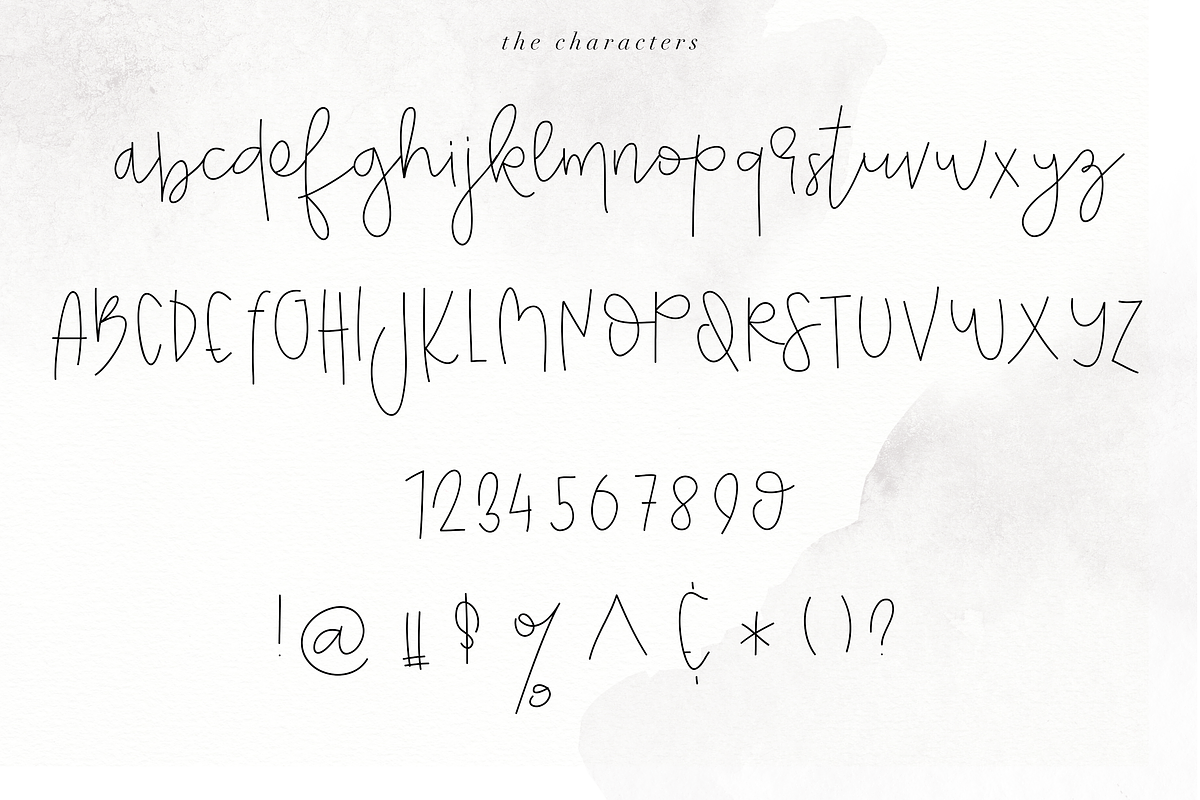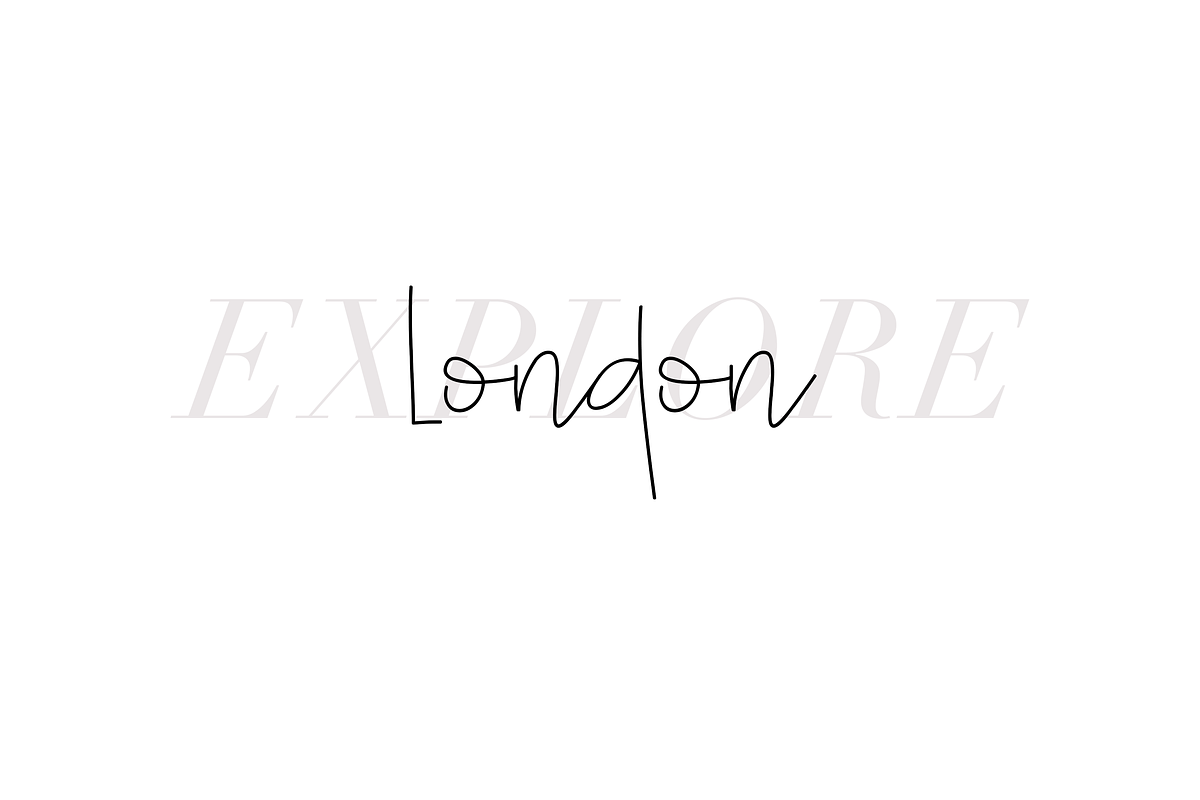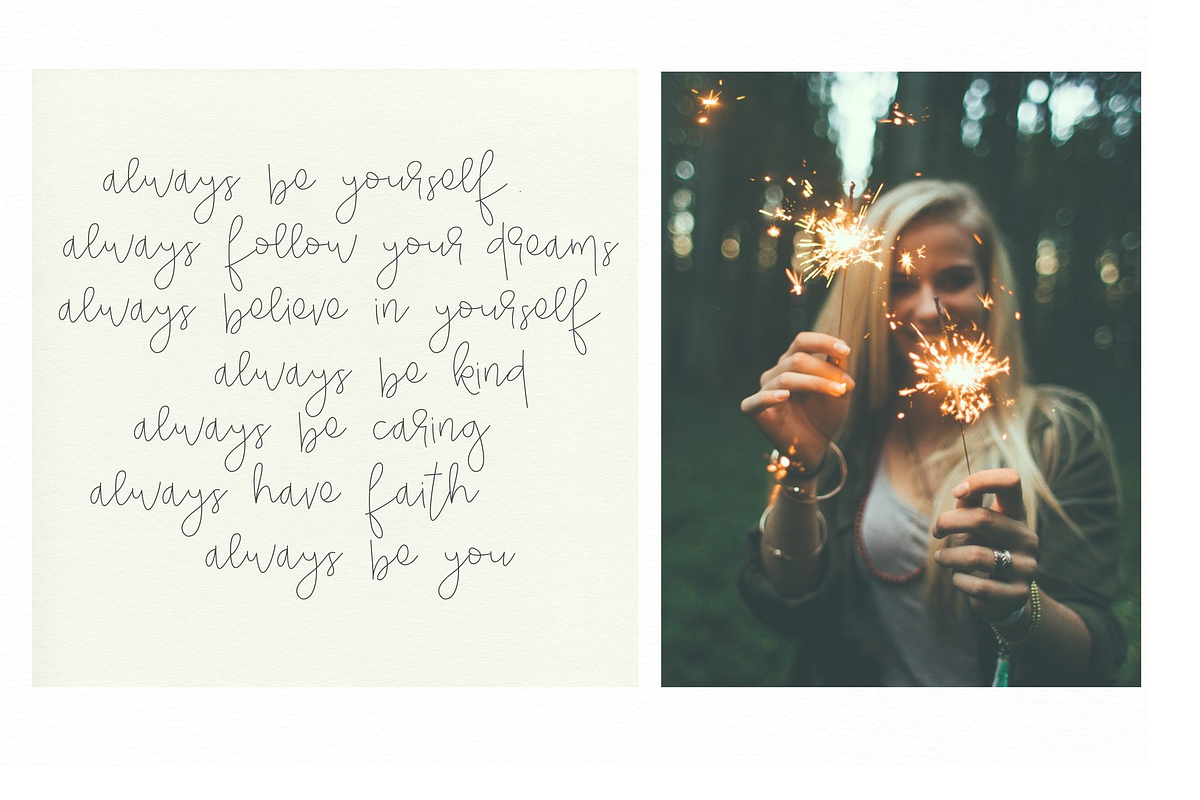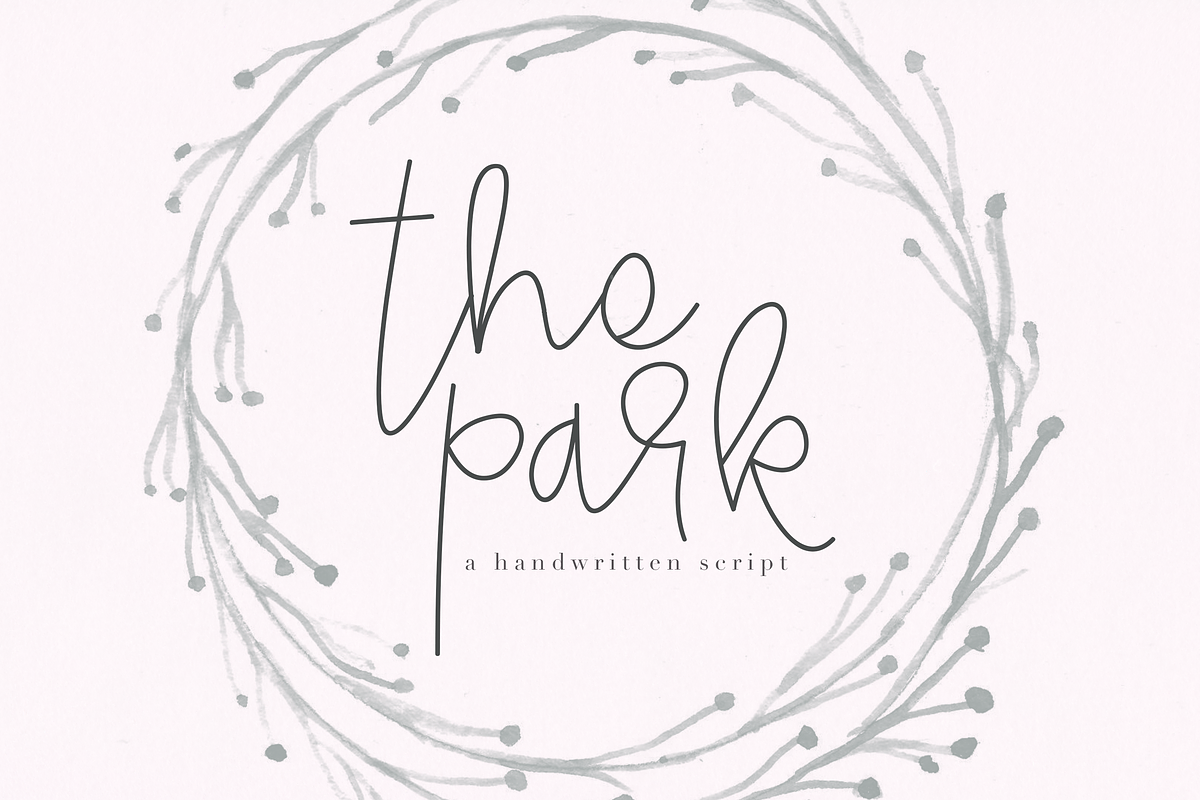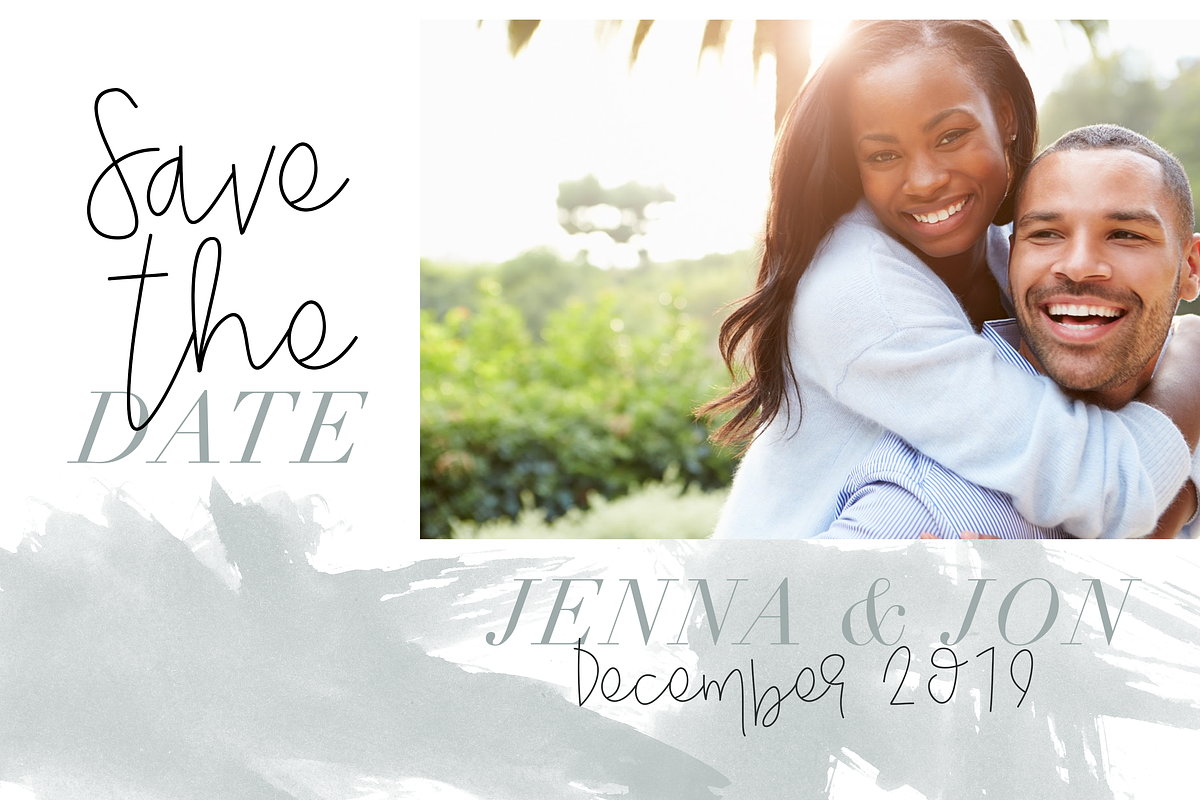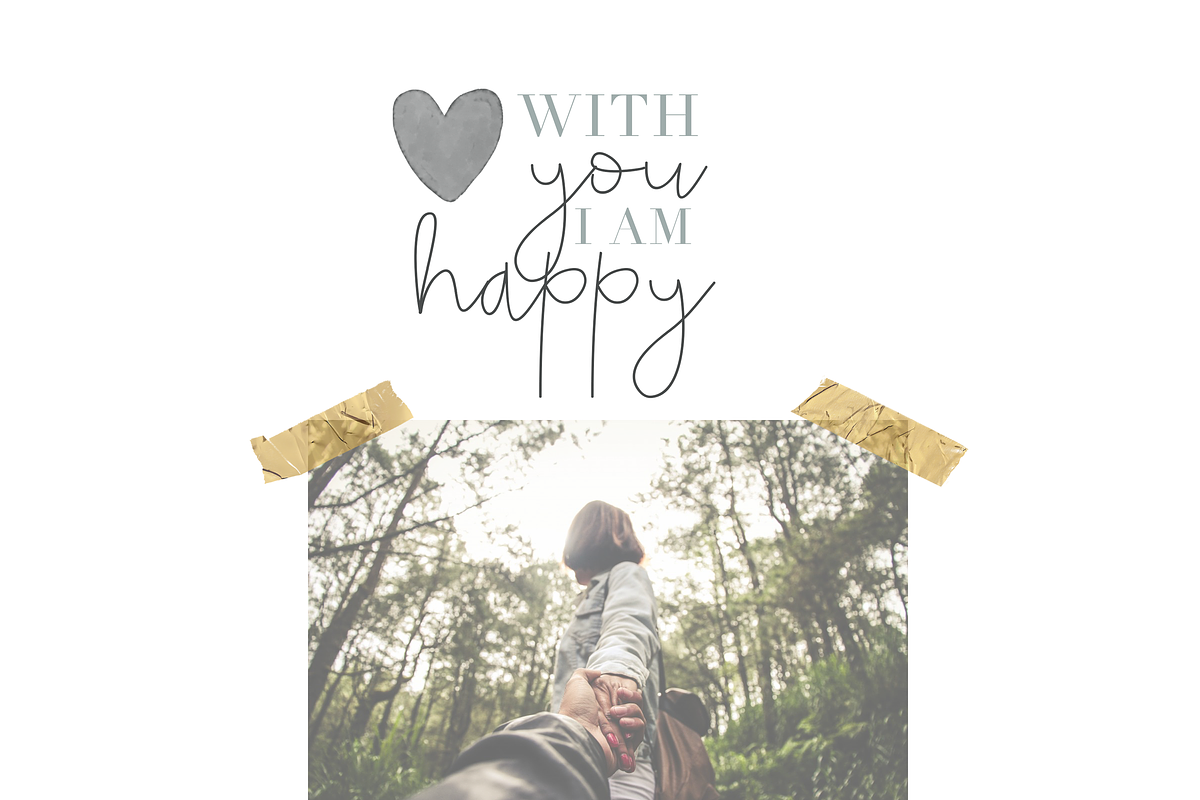
Park - Handwritten Script Font
The Park is a handwritten script font. This font is perfect for quotes, headings, blogs, logos, invitations and more!
This font does include accent characters. There are two underline swatches included. They can be accessed by using the and keys.
- There are two underline swatches included.
- There are no extra ligatures - I like to keep it simple.